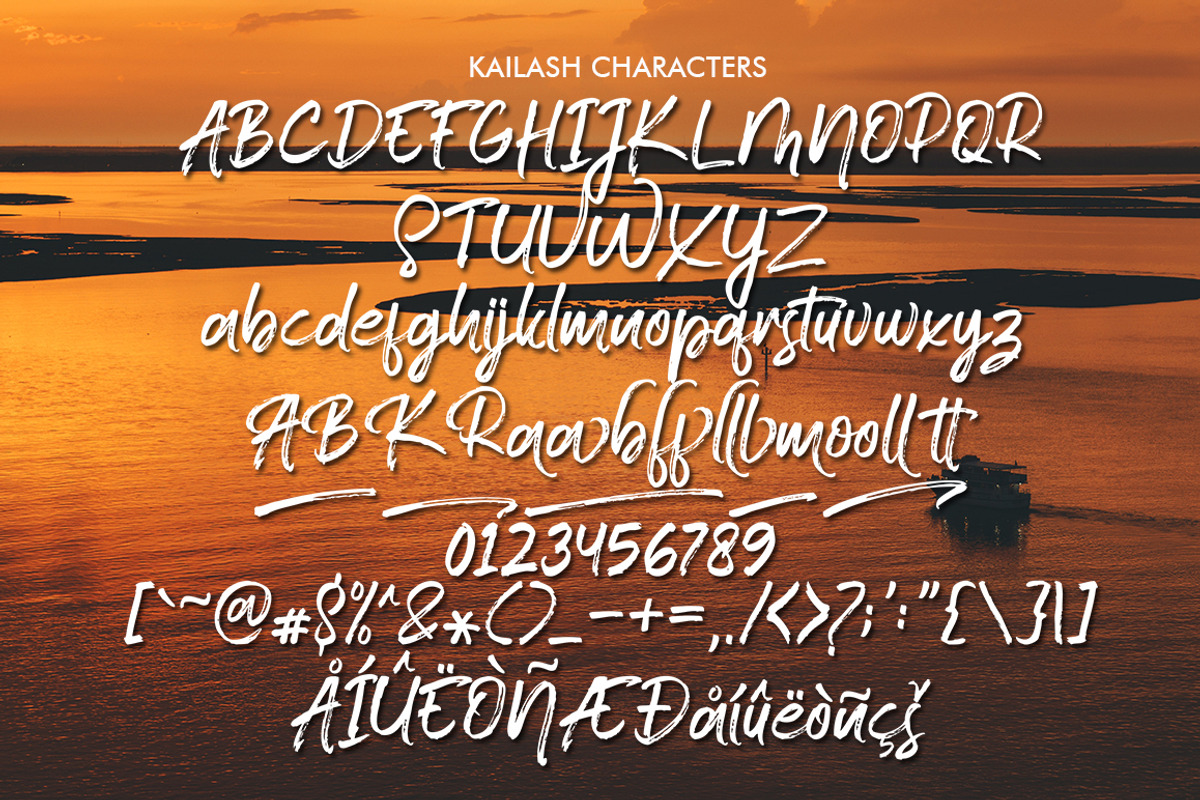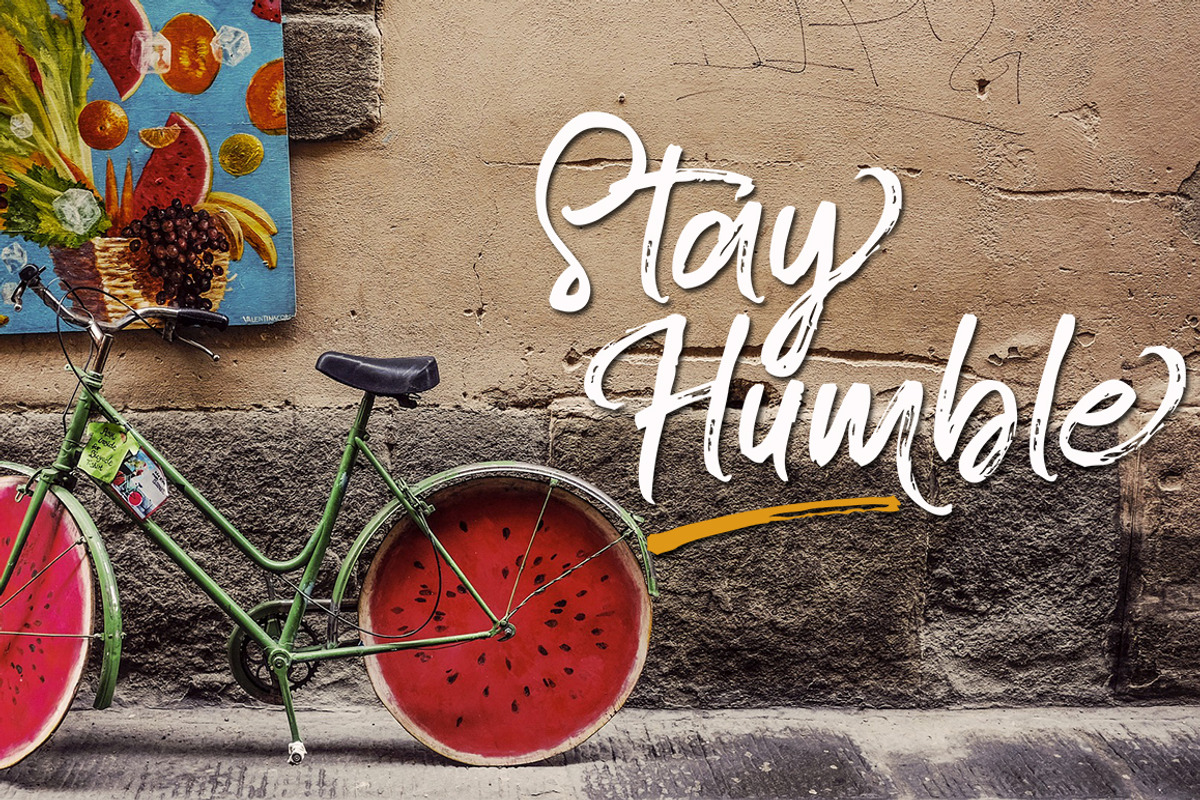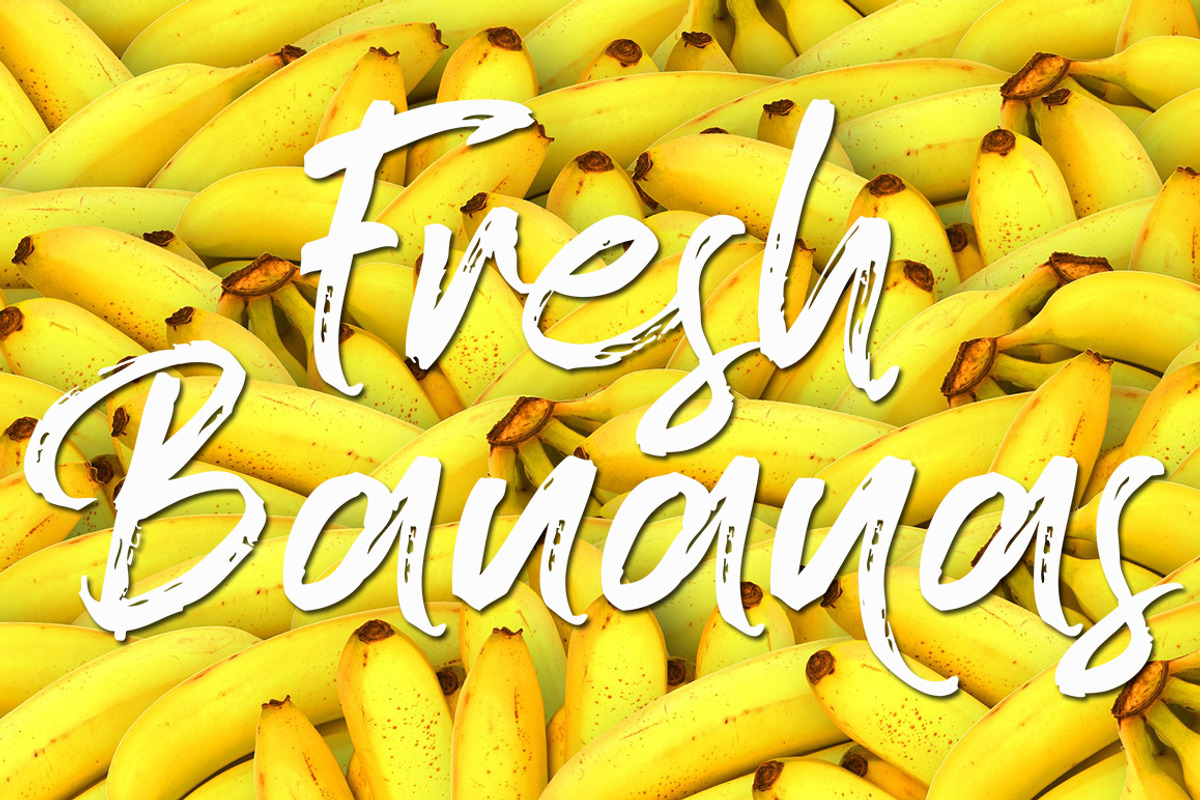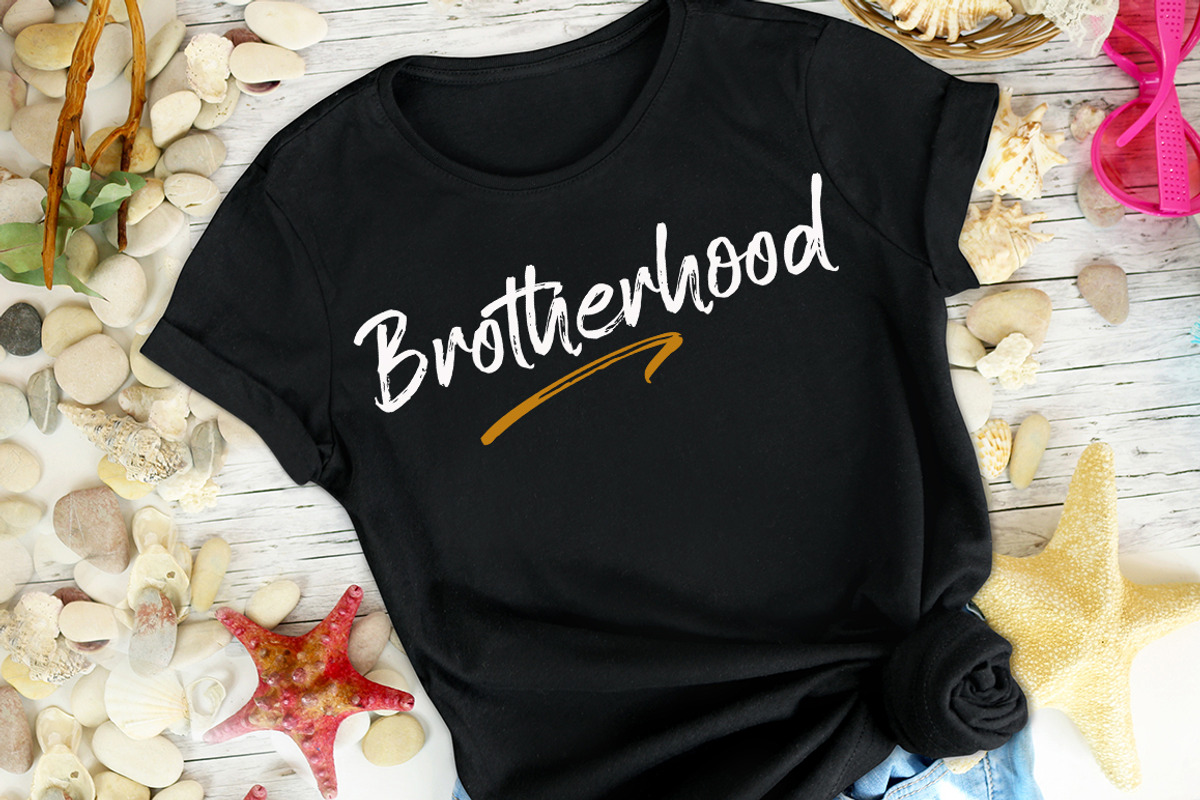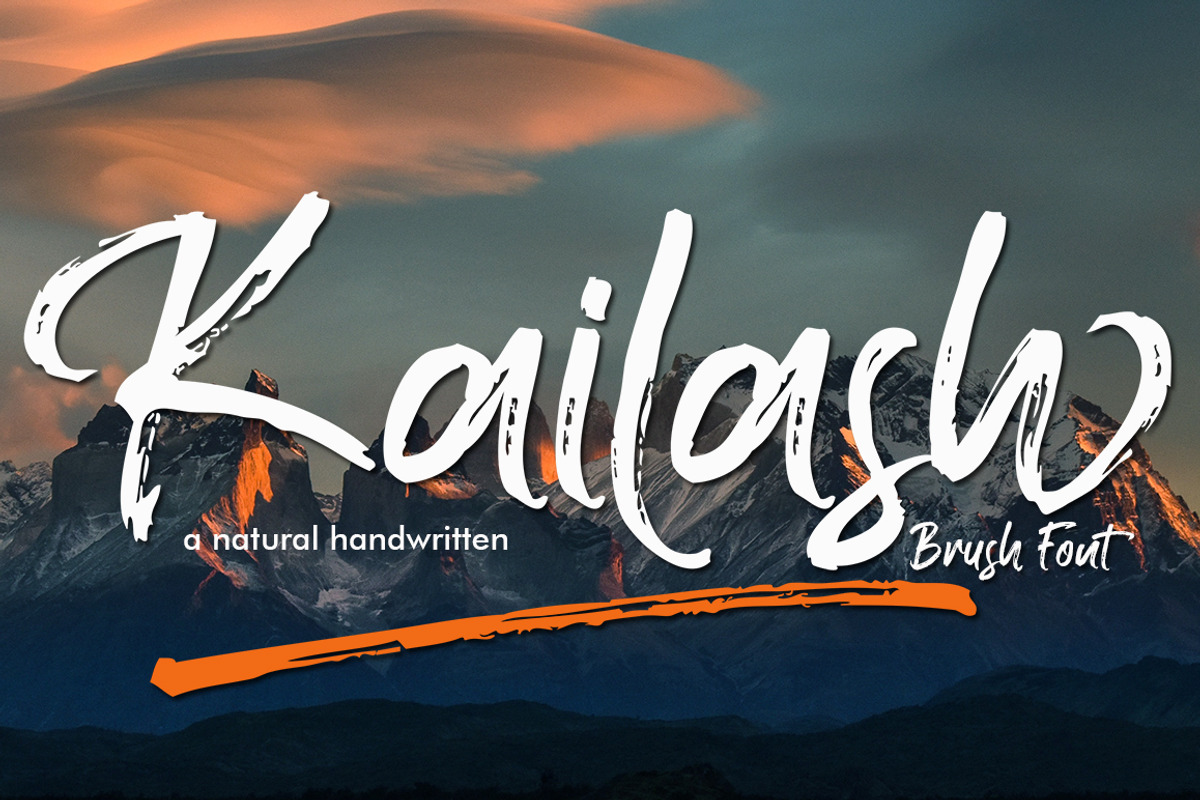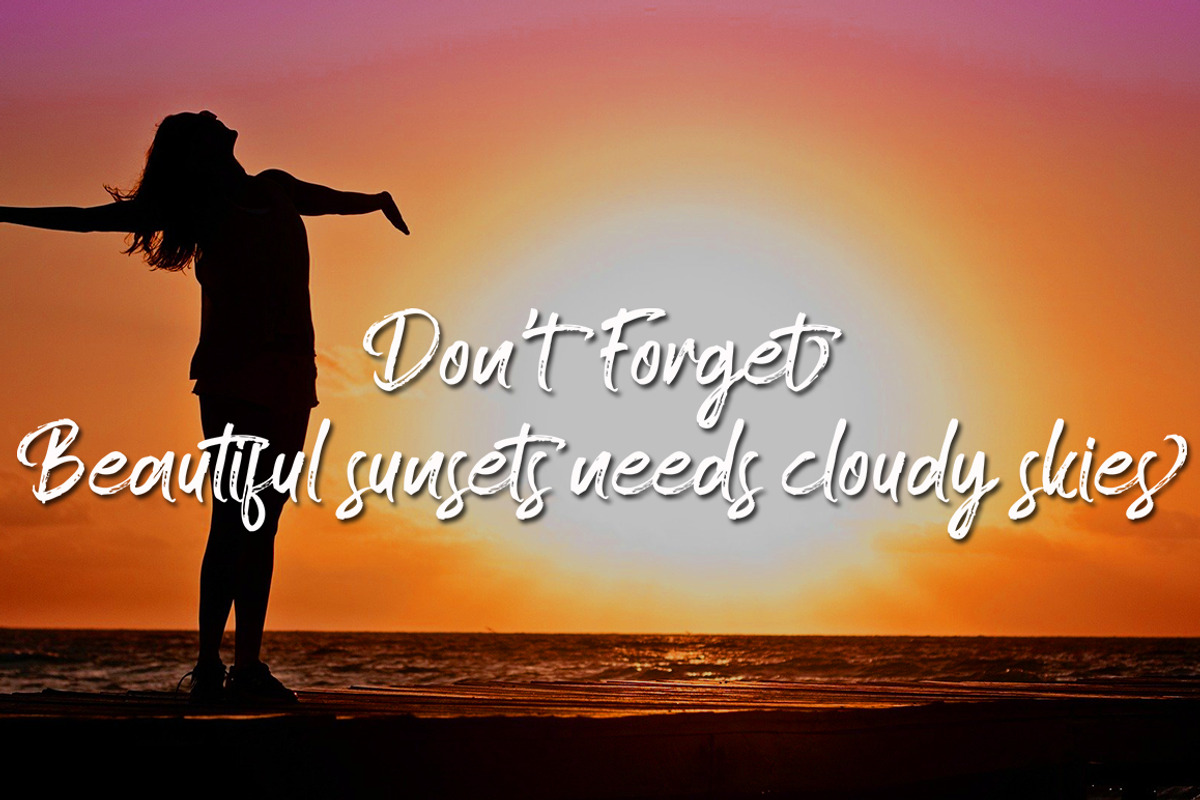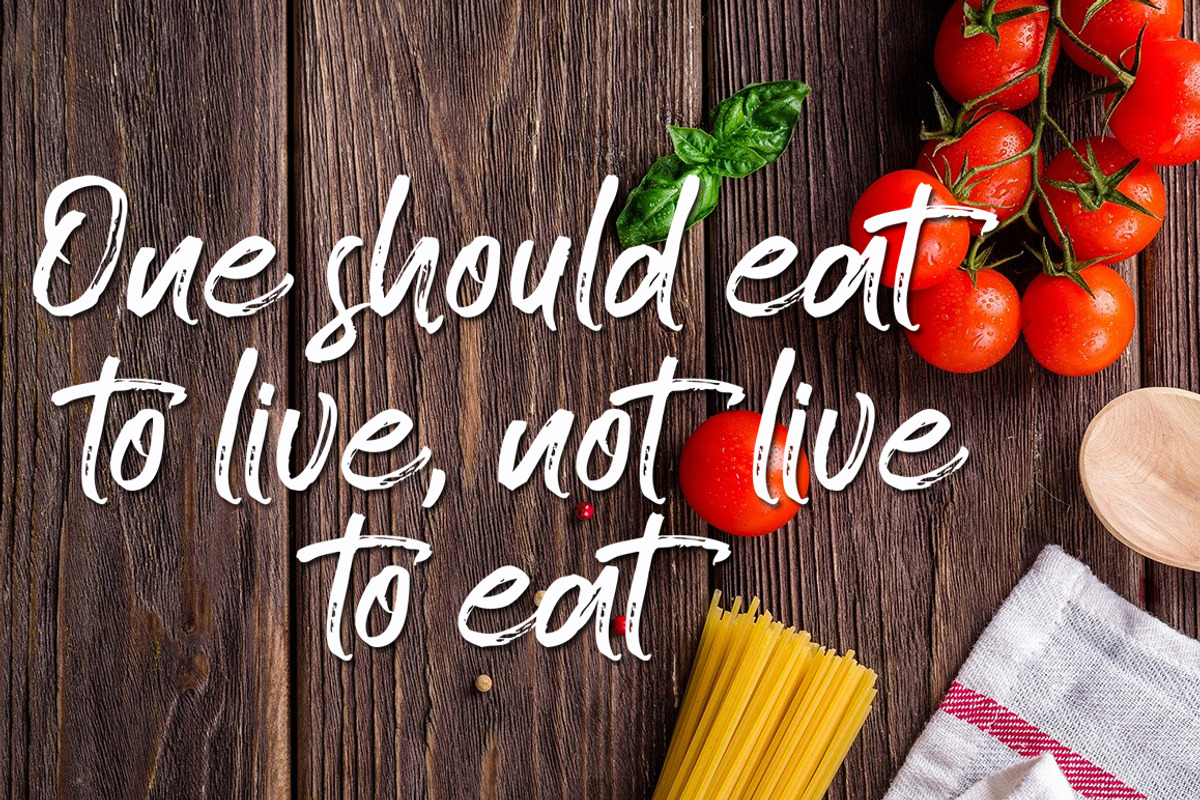
Kailash - Brush Font
Kailash is a new modern brush font with an irregular baseline, a contemporary approach to design, handmade natural and suitable for use in title design such as clothing, invitations, book titles, stationery designs, quotes, branding, logos, T-shirts, packaging designs, posters, and more.Complete with uppercase and lowercase letters, as well as multi-lingual support, numbers, punctuation, Kailash also provides some ligatures and swash.